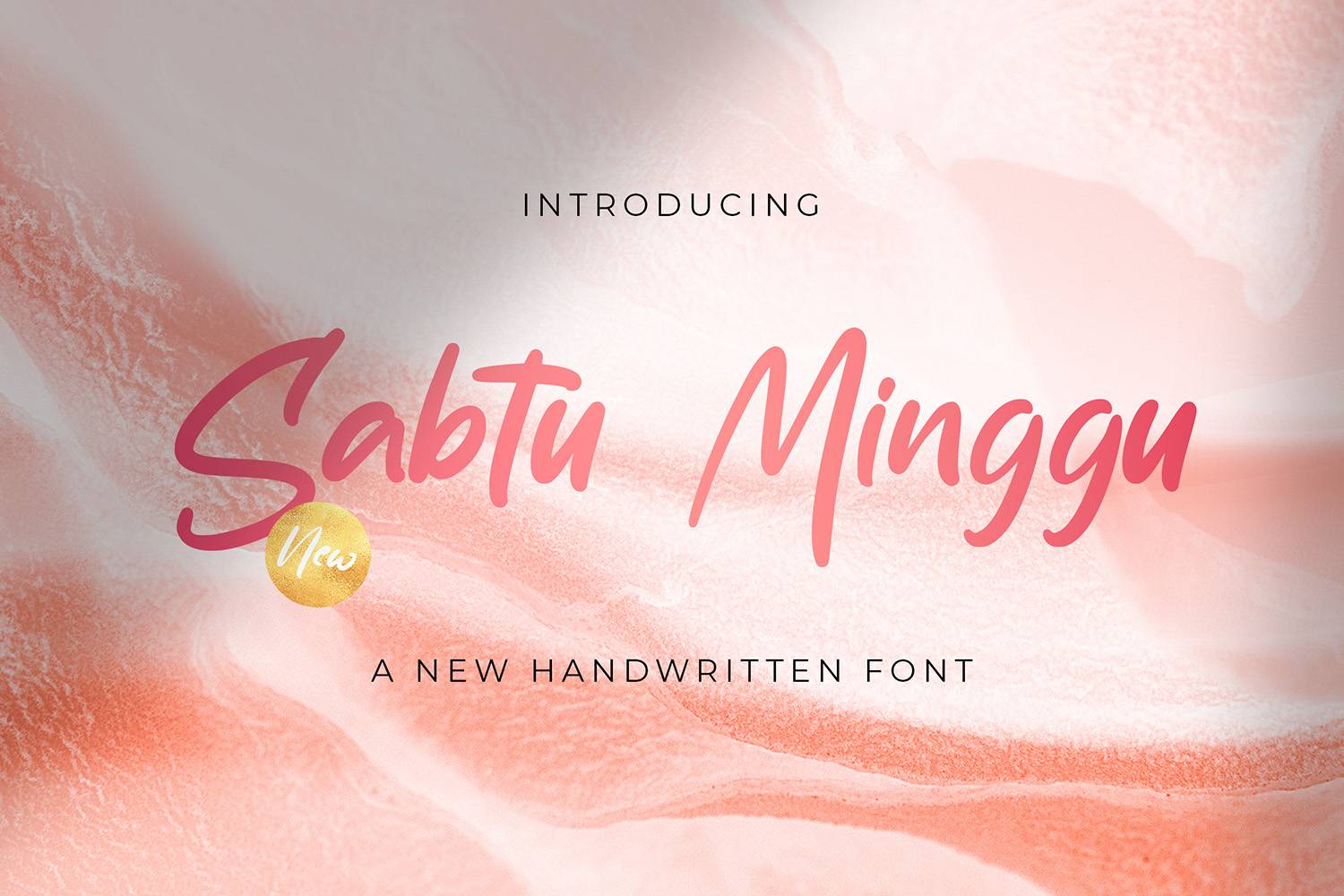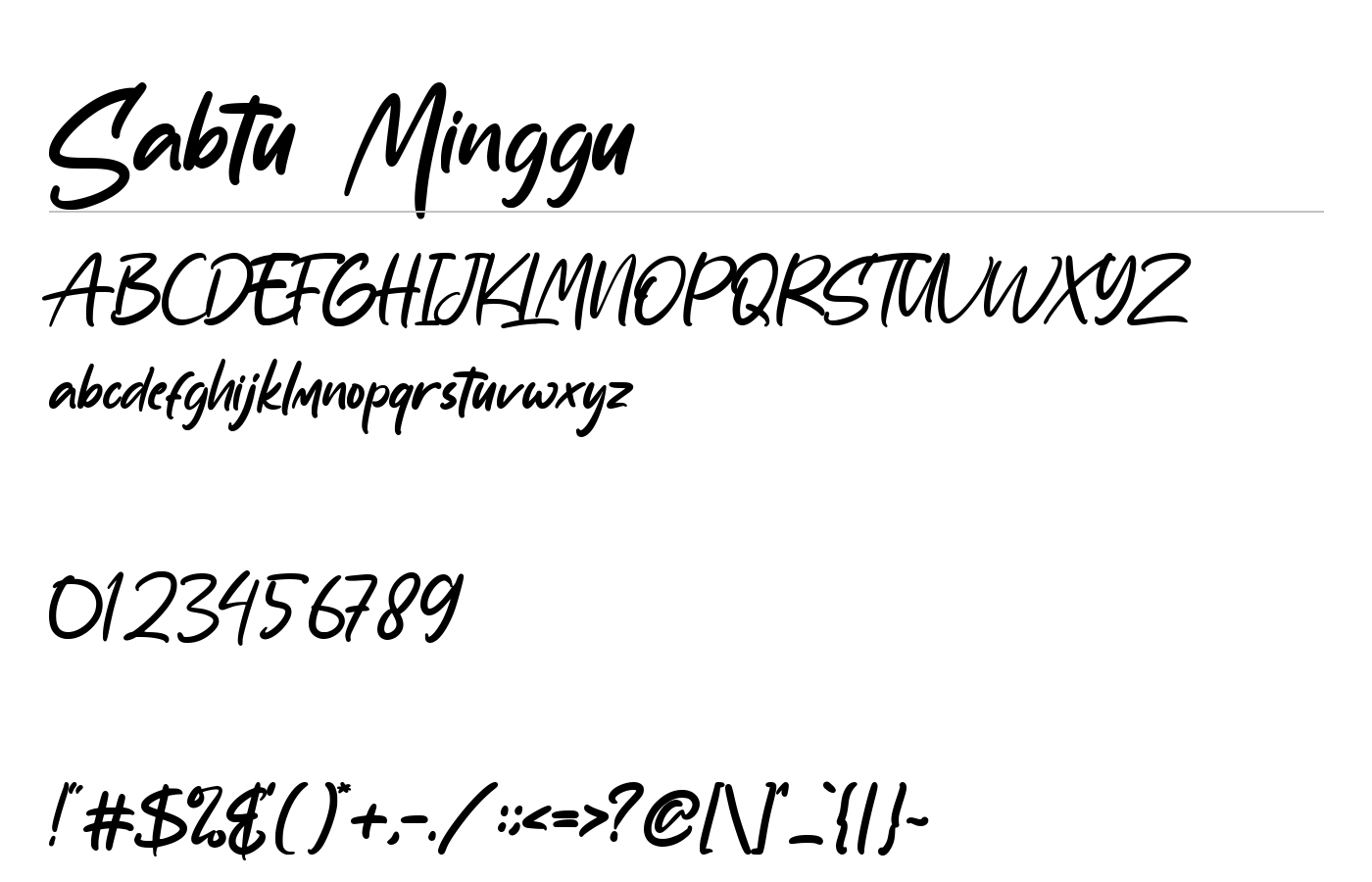
Sabtu Minggu is a lively, casual script font with a handwritten feel that blends smooth, flowing strokes with a slightly energetic rhythm. Its medium weight and moderate contrast give it good readability while maintaining a playful and friendly personality, making it perfect for creative projects, branding, and informal headlines that seek a personal touch. This font works well in designs that want to convey warmth and approachability, such as lifestyle blogs, packaging, and social media graphics.
Sabtu Minggu Font
About Sabtu Minggu Font